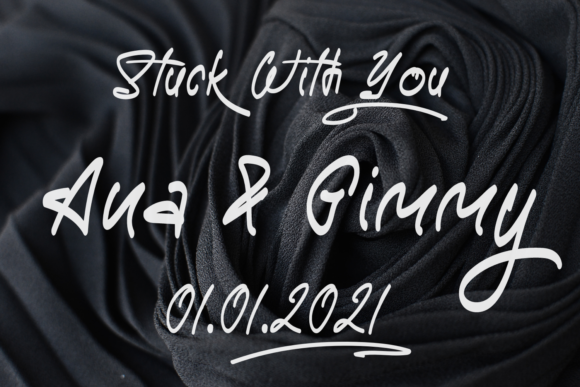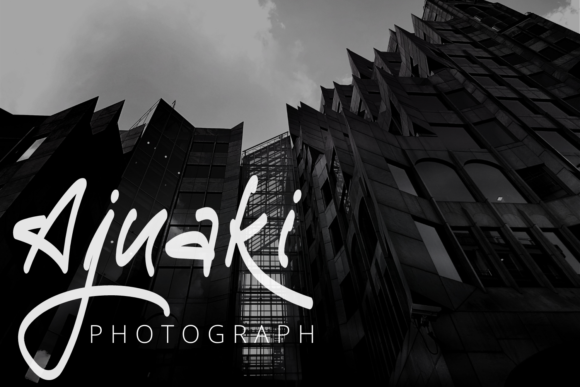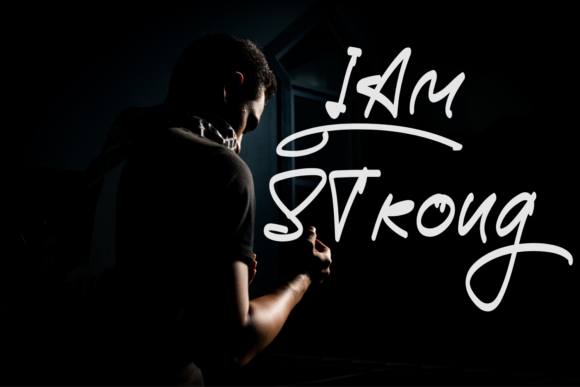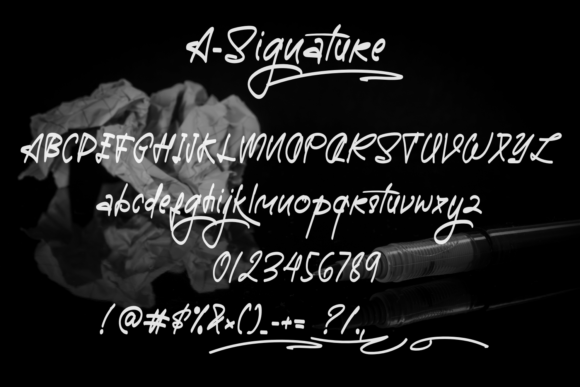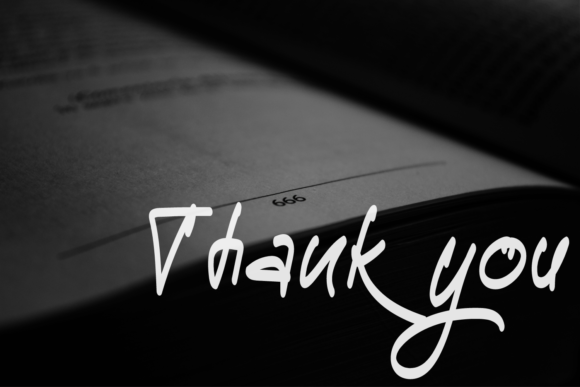
A-Signature Font: Elevate Your Designs with Elegance and Flair
Are you a designer or crafter looking for a font that exudes elegance and sophistication? Look no further than A-Signature, a delicate and flowing handwritten font that is sure to take your creative projects to the next level. With its beautiful and well-balanced characters, A-Signature is the perfect addition to any design, from wedding invitations and branding materials to digital graphics and craft projects.
The Beauty of A-Signature
A-Signature is a stunning example of a handwritten font done right. Its delicate lines and flowing curves create a sense of movement and fluidity, making it perfect for designs that require a touch of elegance and sophistication. The font’s characters are carefully crafted to be well-balanced and harmonious, ensuring that your text looks beautiful and refined, whether you’re using it for a title, a heading, or body text.
One of the standout features of A-Signature is its versatility. This font can be used in a wide range of designs, from formal and traditional to modern and playful. Whether you’re creating a wedding invitation, a logo, or a social media graphic, A-Signature is sure to complement your design perfectly. Its neutral tone and elegant style make it an excellent choice for designers and crafters who want to add a touch of sophistication to their work.
Why Choose A-Signature?
So why choose A-Signature over other fonts? Here are just a few reasons why this font stands out from the crowd:
- Elegant and sophisticated: A-Signature is the perfect choice for designers and crafters who want to add a touch of elegance and sophistication to their work.
- Versatile: This font can be used in a wide range of designs, from formal and traditional to modern and playful.
- Beautiful and well-balanced characters: A-Signature’s characters are carefully crafted to be harmonious and refined, ensuring that your text looks beautiful and elegant.
- Easy to read: Despite its delicate lines and flowing curves, A-Signature is surprisingly easy to read, making it perfect for body text and other applications where readability is key.
How to Use A-Signature in Your Designs
Using A-Signature in your designs is easy. Here are a few tips to get you started:
- Pair it with a bold font: A-Signature looks stunning when paired with a bold font. Try using it with a sans-serif font for a modern and playful look.
- Use it for headings and titles: A-Signature is perfect for headings and titles, where its elegant style can really shine.
- Add some flair with swashes: A-Signature comes with a range of swashes and flourishes that can add a touch of elegance and sophistication to your designs.